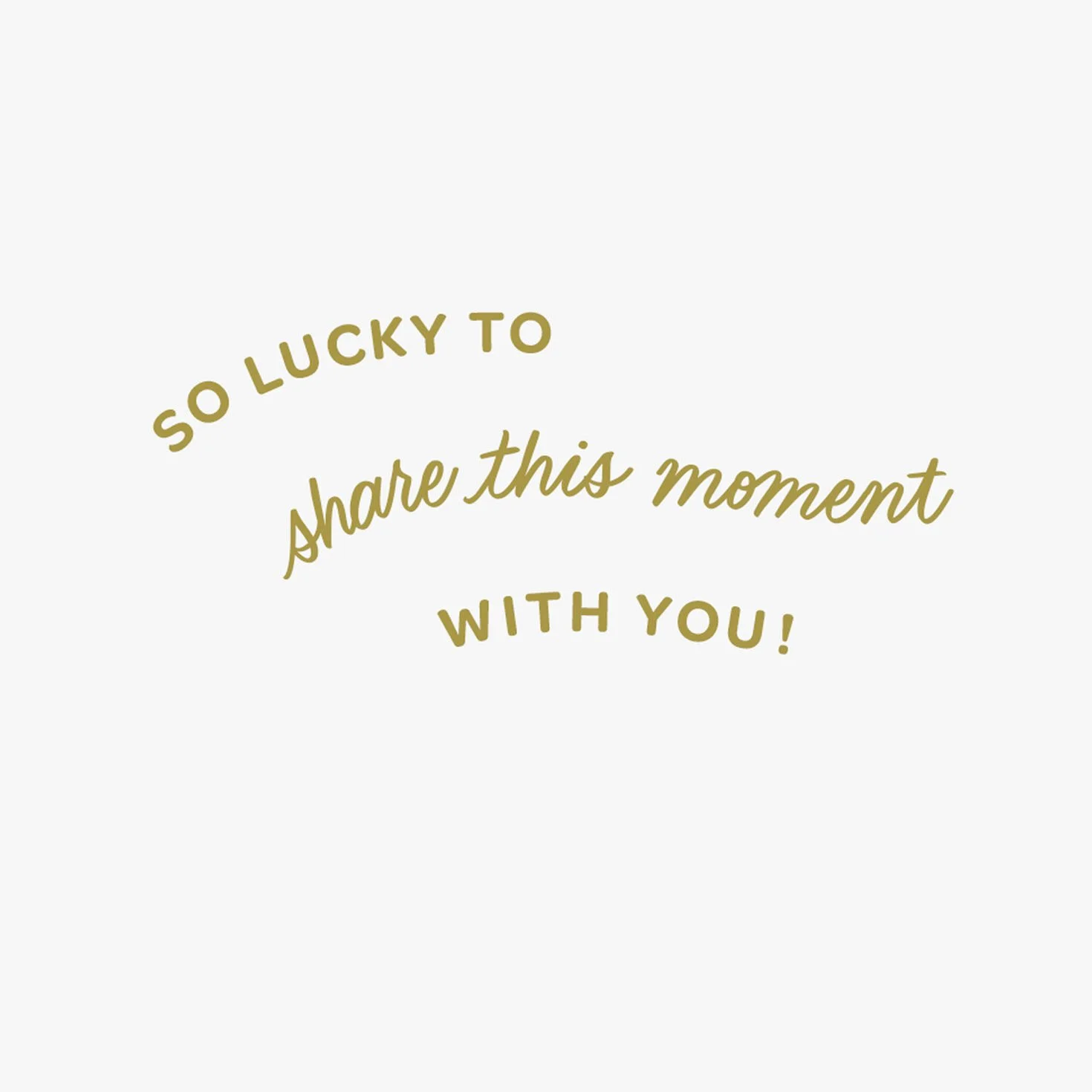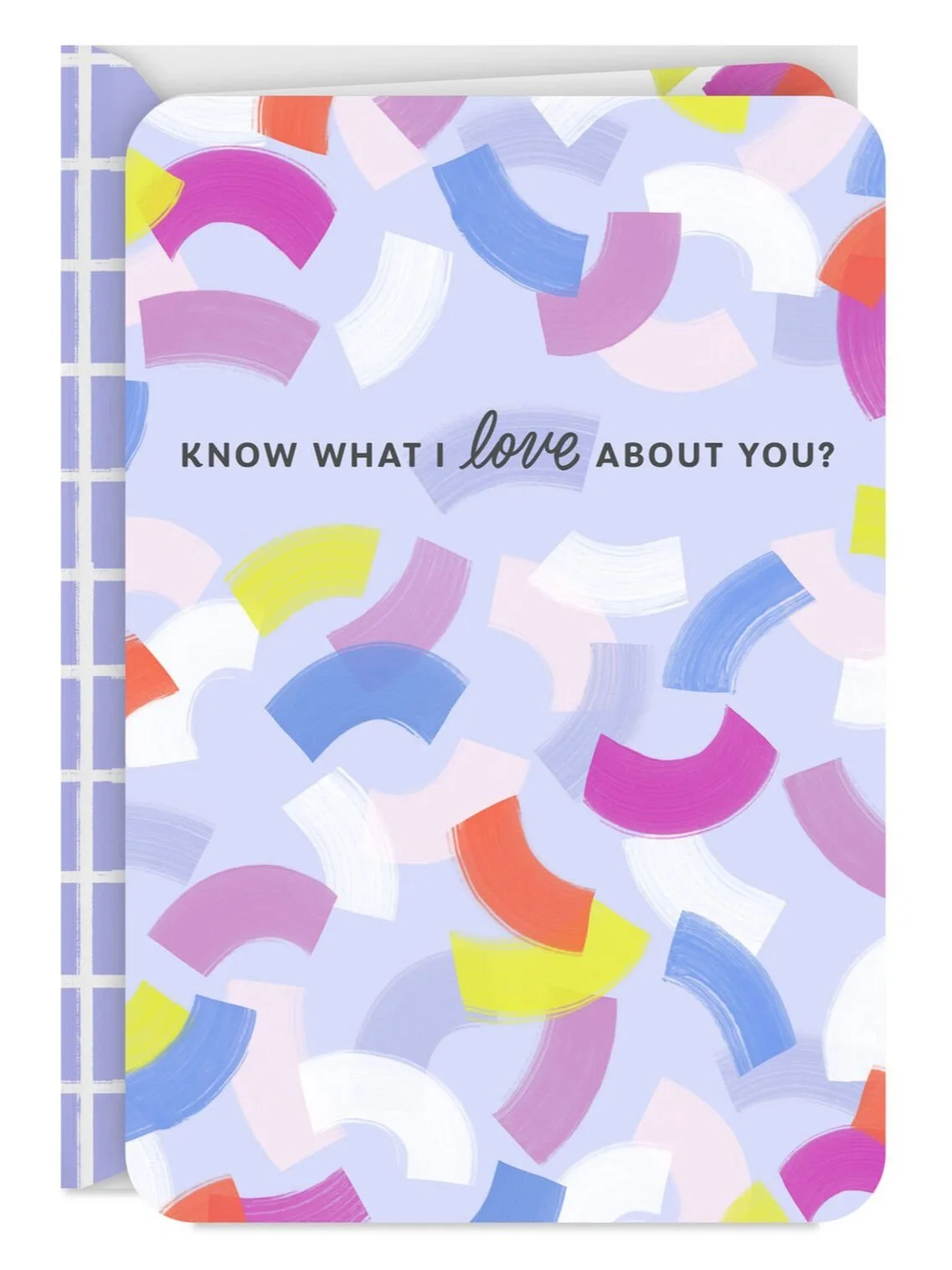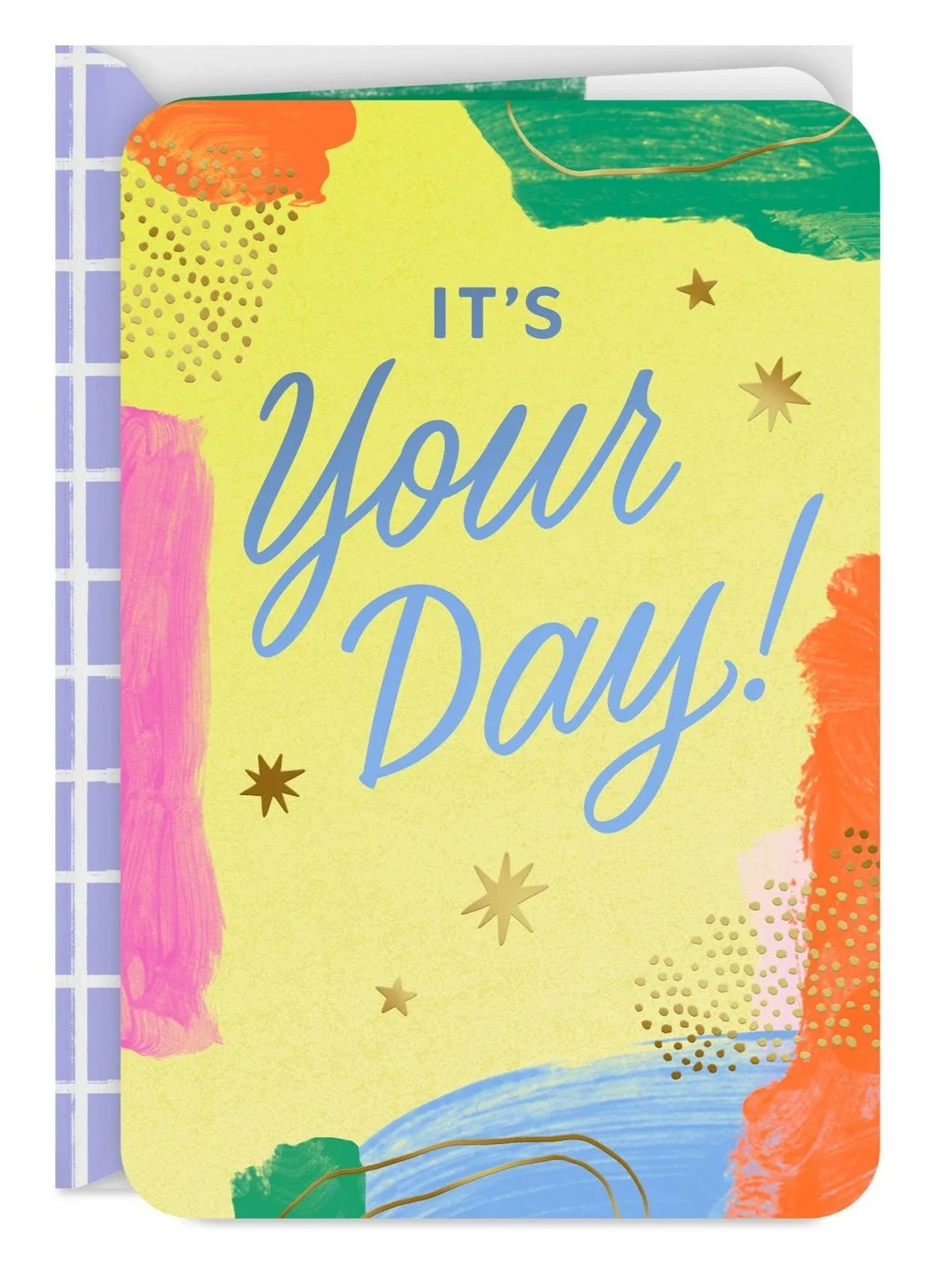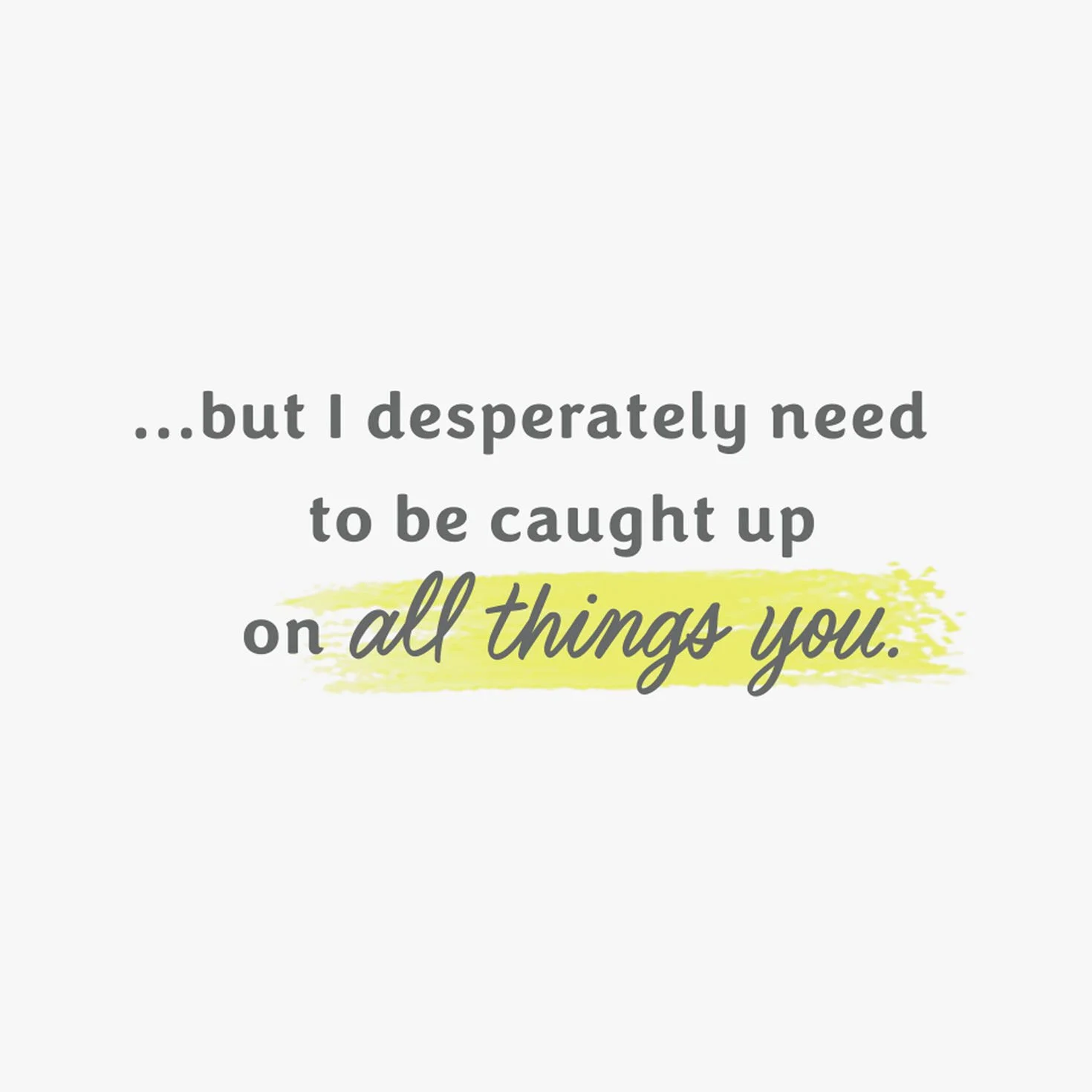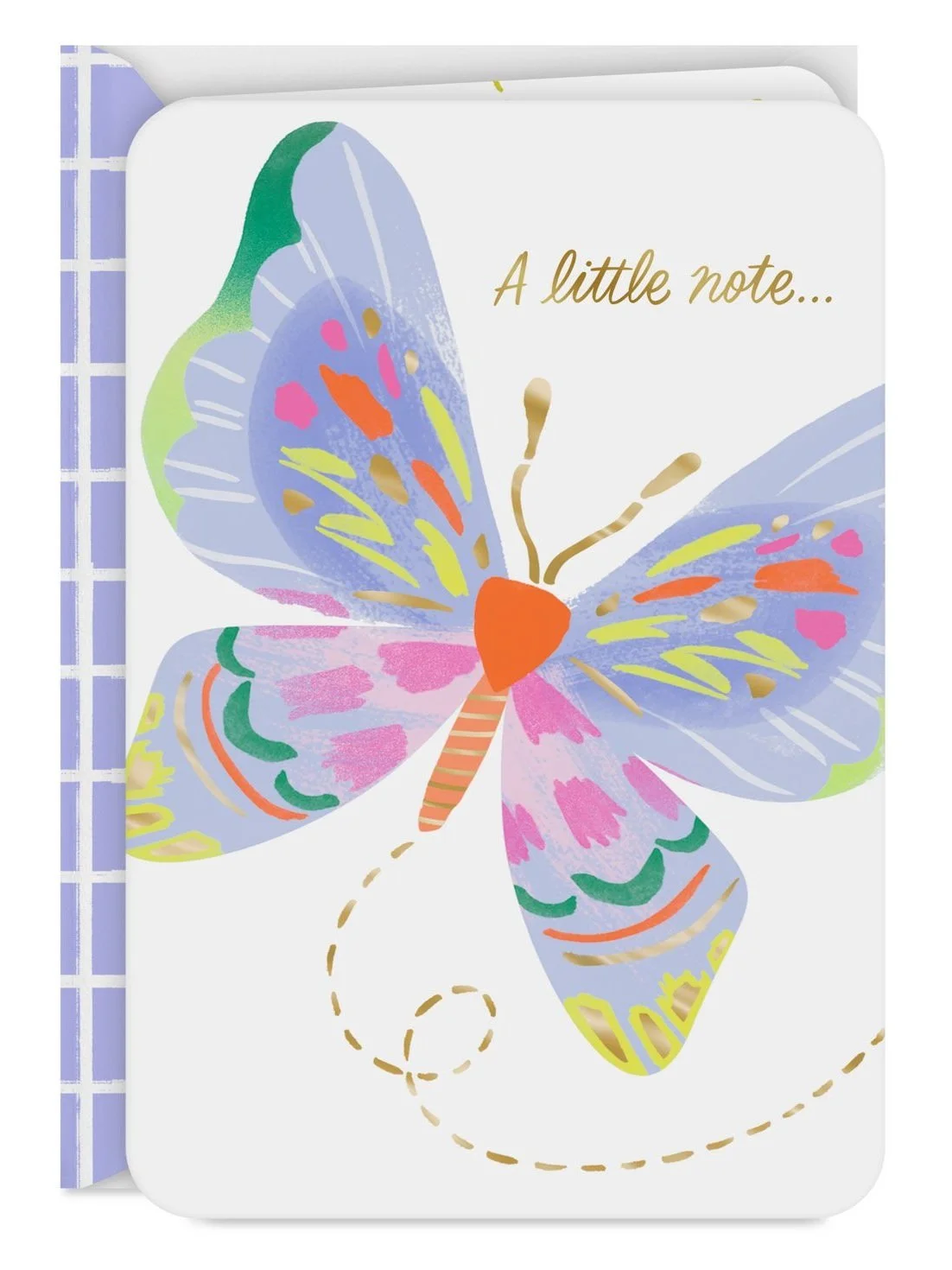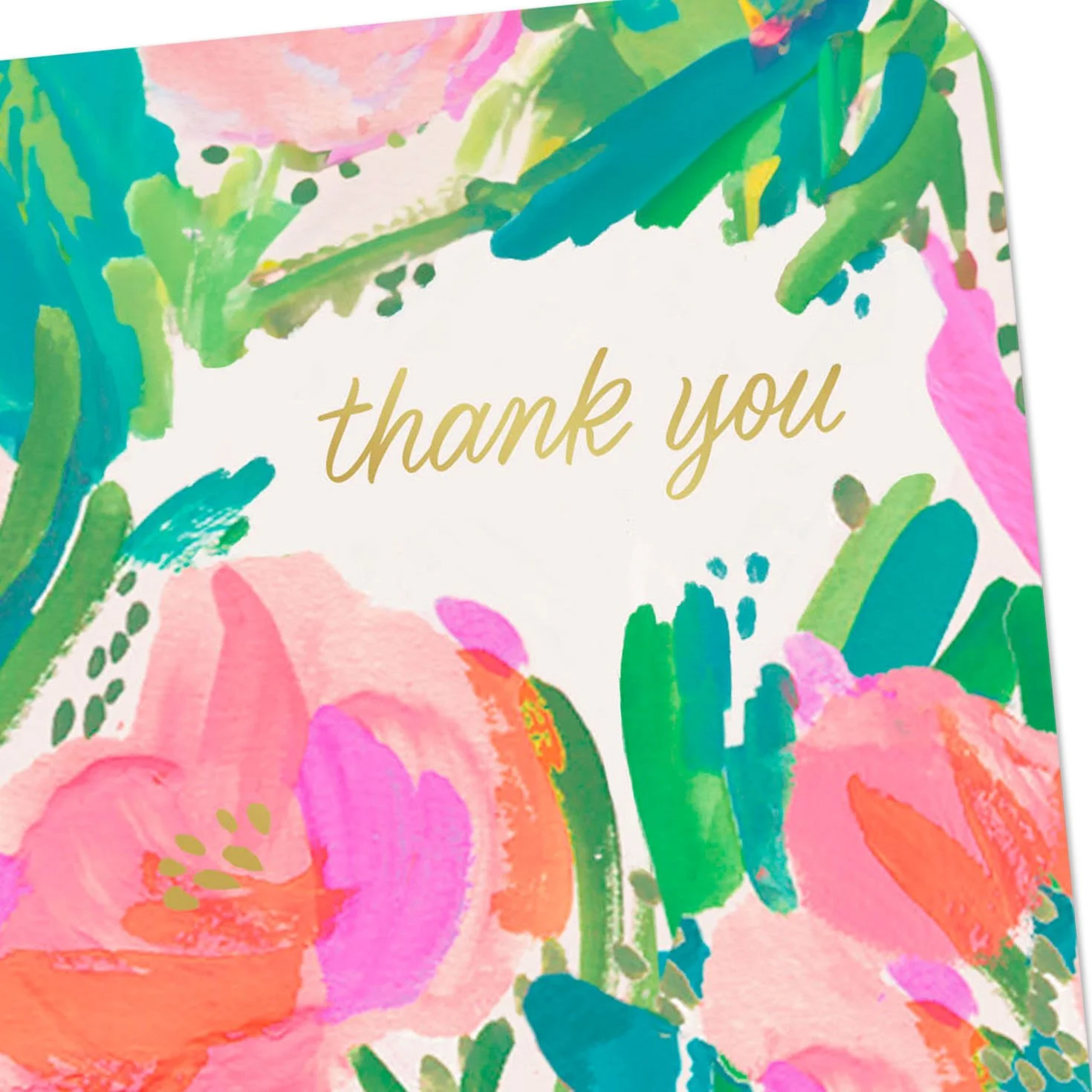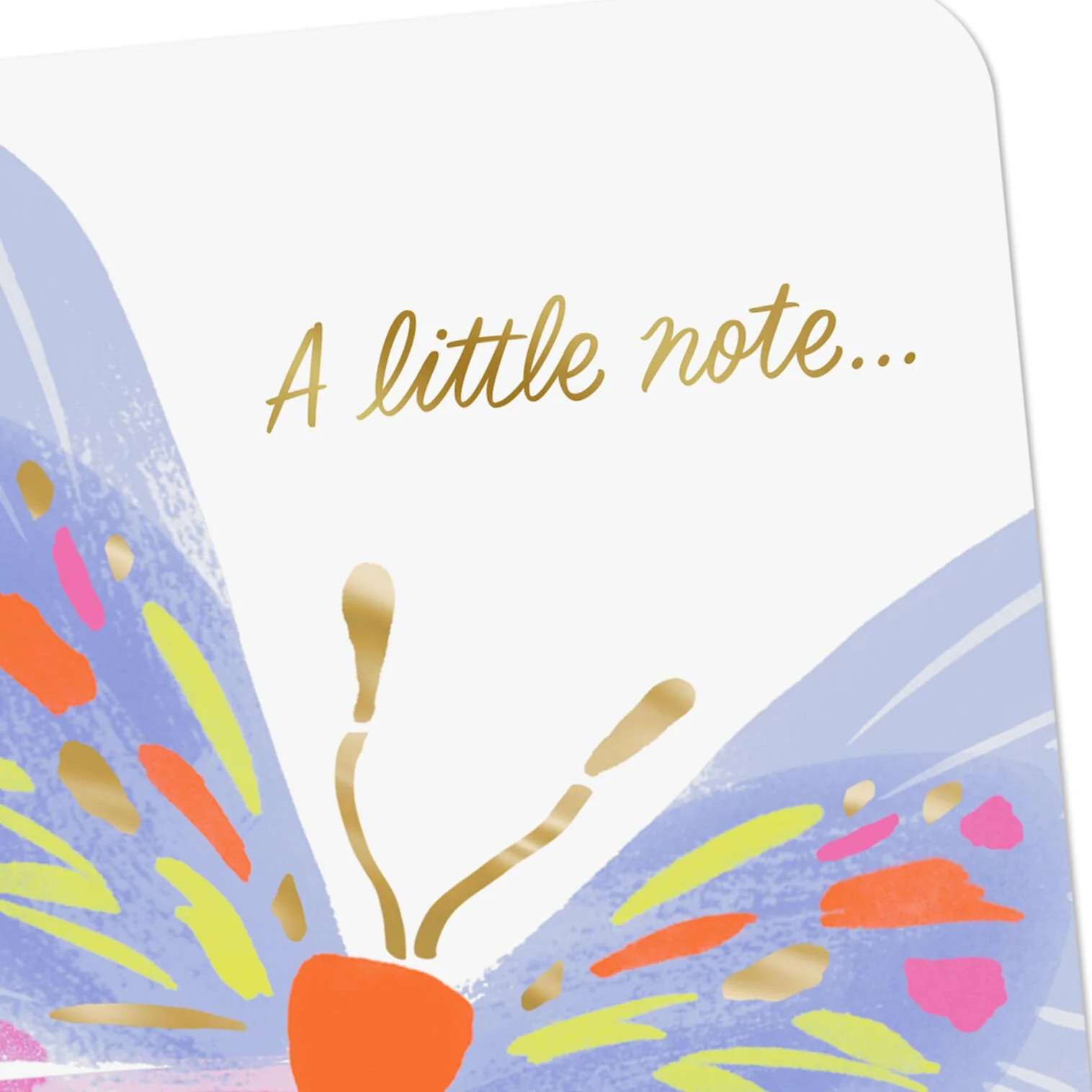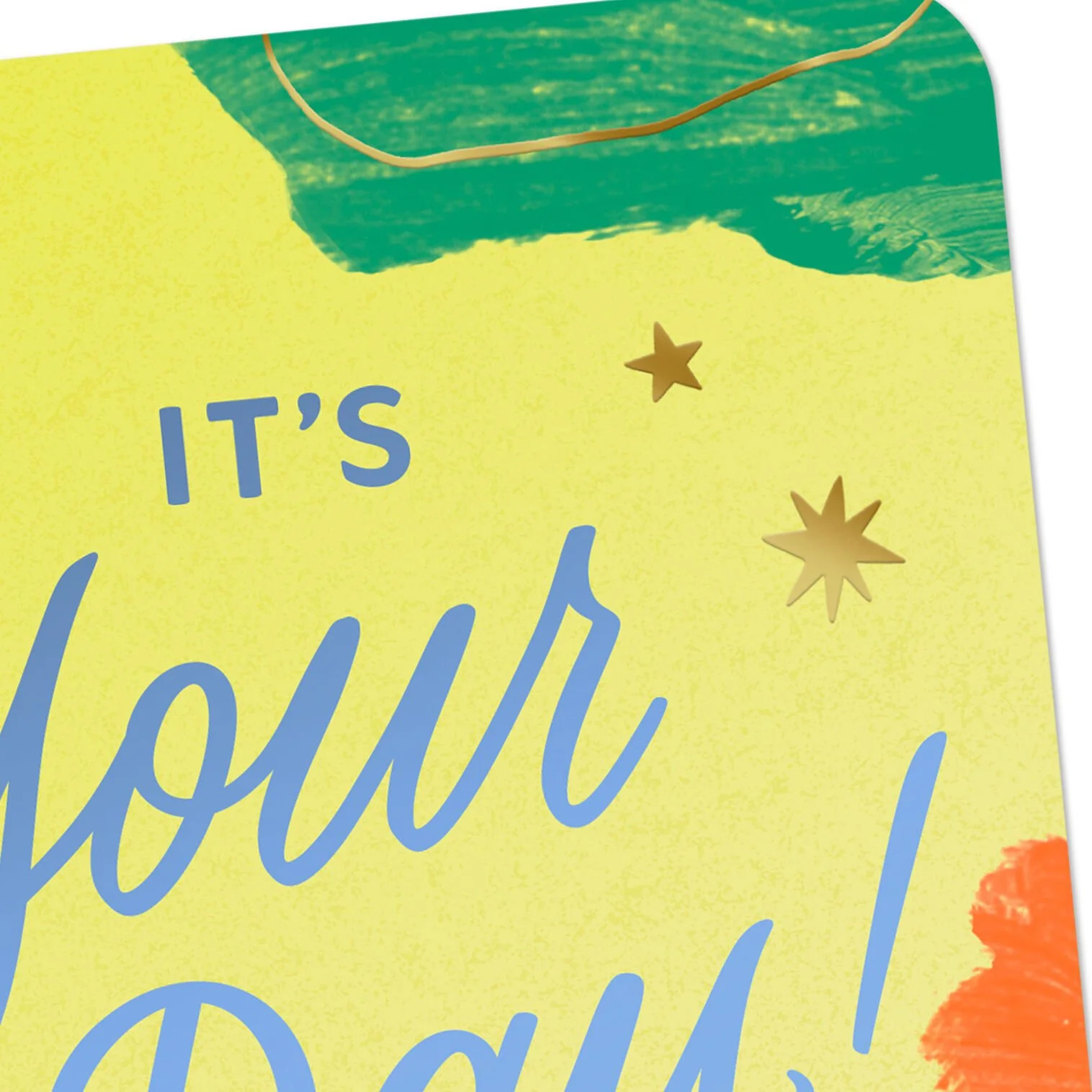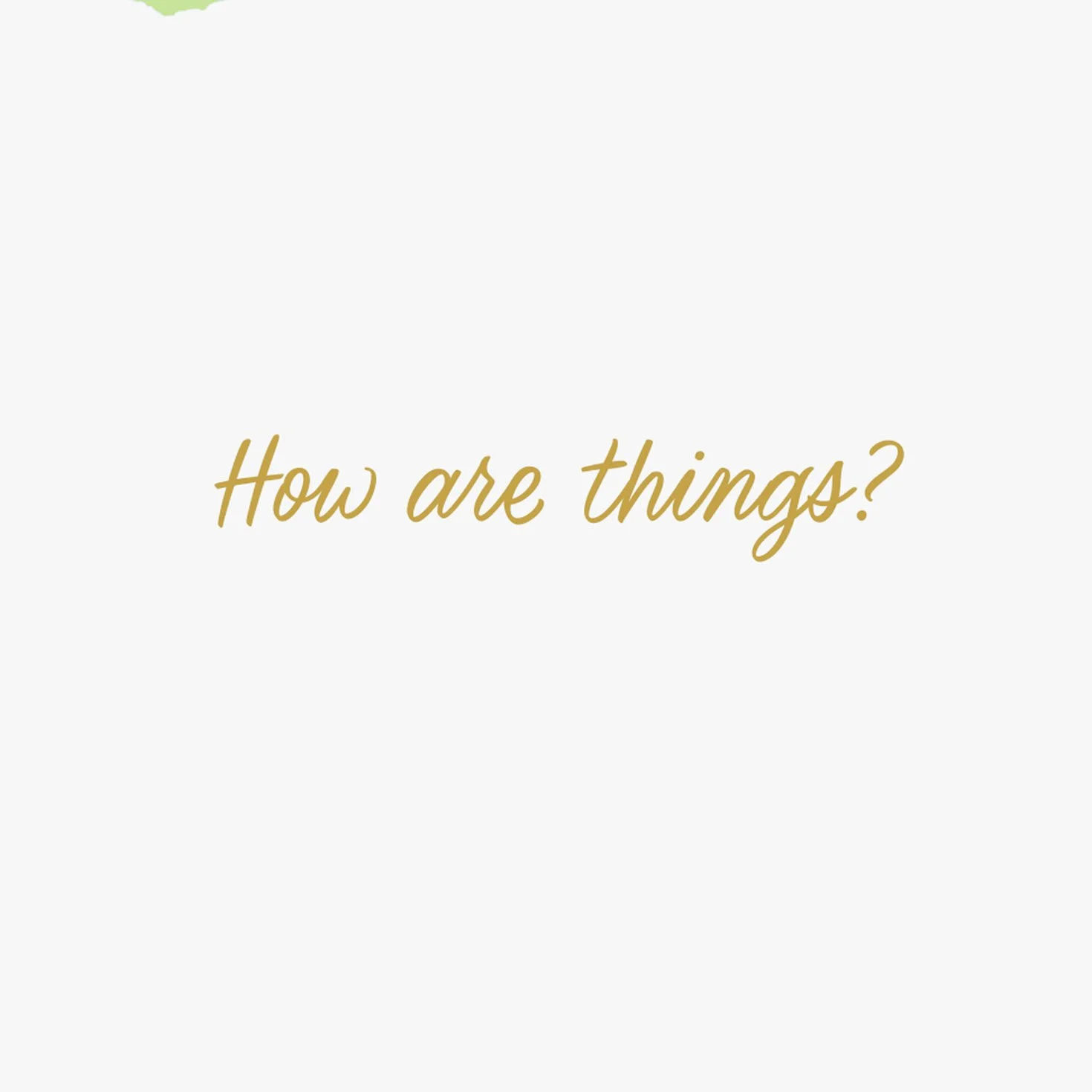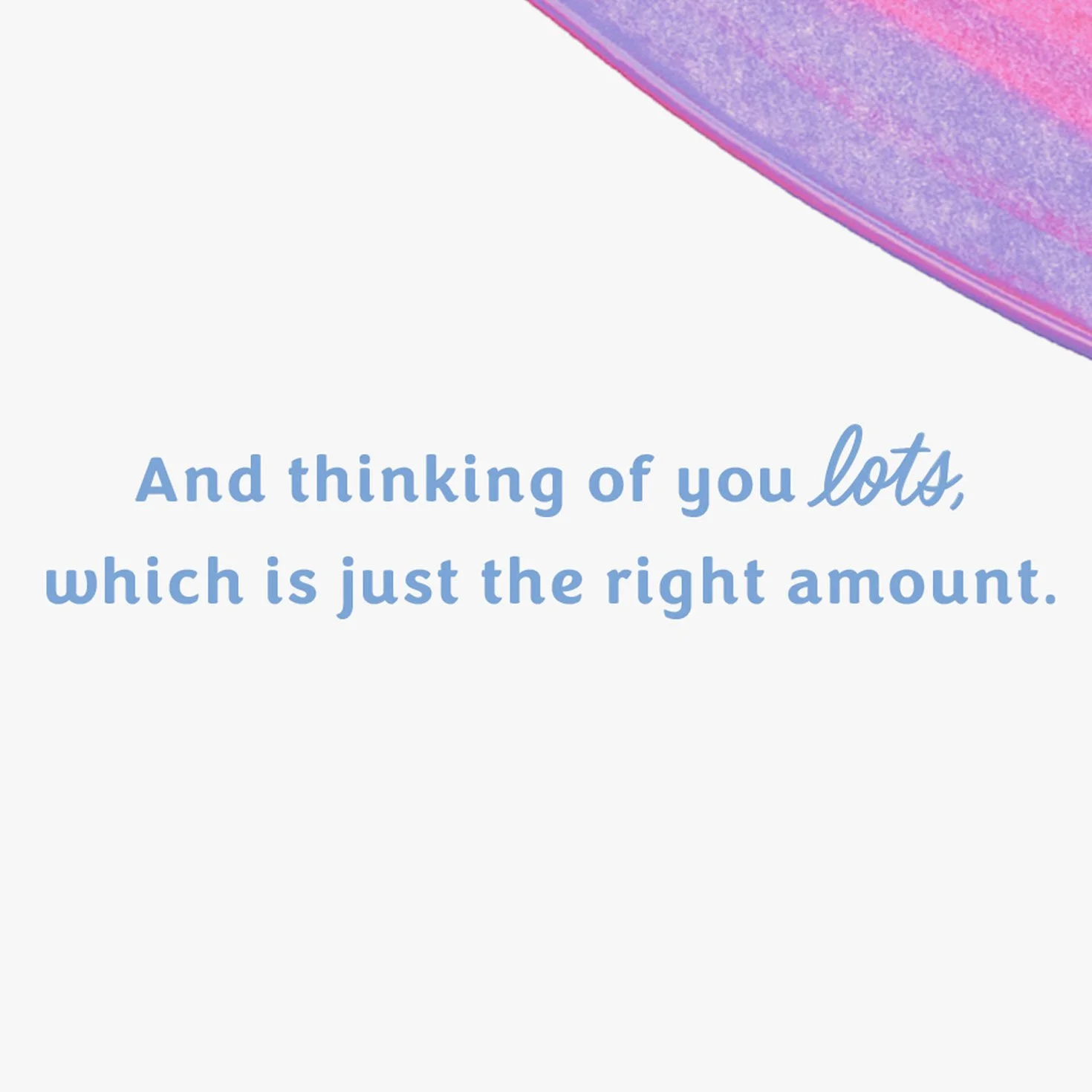
My Fieldnotes font was also utilized on a few Just Because cards that you can customize with personal messages and photos. I also have to call out the wonderful new logo for Just Because by Chris Russell.
The Just Because line also utilized one of my newer font collaborations with Josh, a soft serif Good Cheer. This cutie golden doodle card even used both Fieldnotes and Good Cheer together! Below you can see Good Cheer mixed with a new font by Chris Russel and Josh Scruggs called Clark.
Hallmarkβs Just Because card line just got a refresh! I was thrilled to see their designers use my casual script font, Fieldnotes, on a several cards. These are so sendable and fun β especially with the poppy color palettes. Fieldnotes was a collaboration with Senior Font Designer Josh Scruggs.
Hallmark has a wonderful selection of photo card designs for the holiday season this year! The two below feature my font, Fieldnotes created by Josh Scruggs, and then my βMerry Christmasβ hand lettered title. Iβm excited to get working on my personal holiday cards very soon!
Based off a my artwork for Valentineβs Day, Iβm obsessed with this bright punchy palette for Christmas and was excited to see my font, Fieldnotes, used as well!
Loved spotting my script font for Hallmark, Fieldnotes, used on this Signature grad card! Thinking of the Class of 2022 as they celebrate this year!